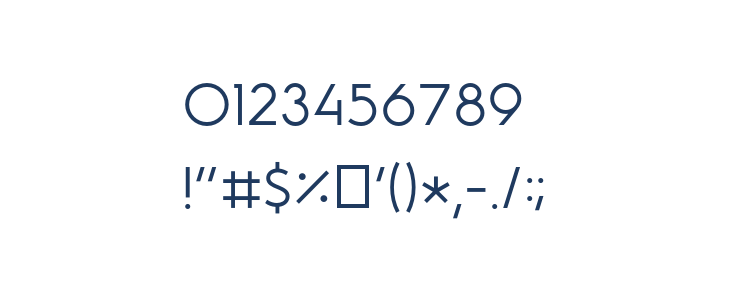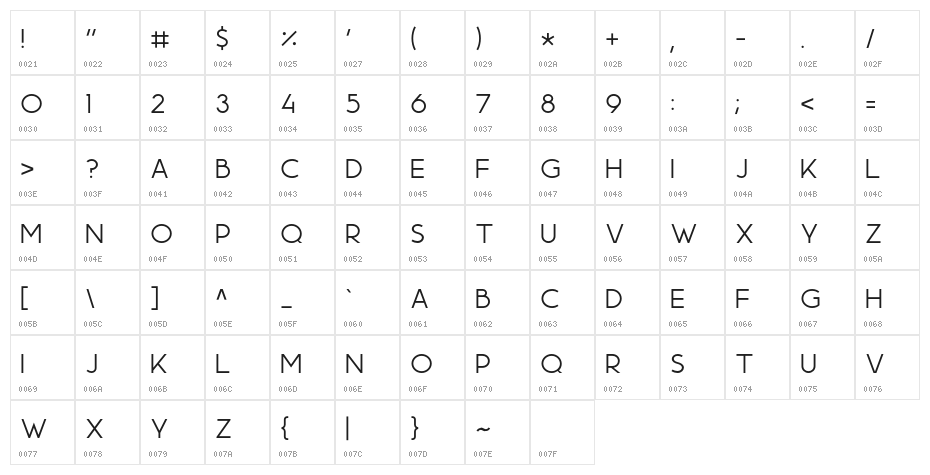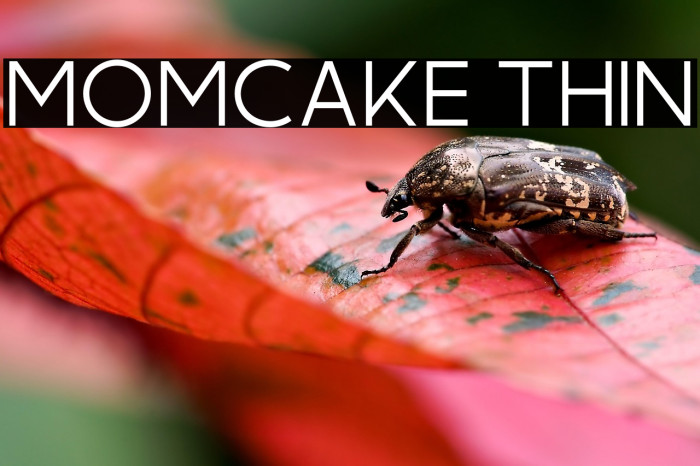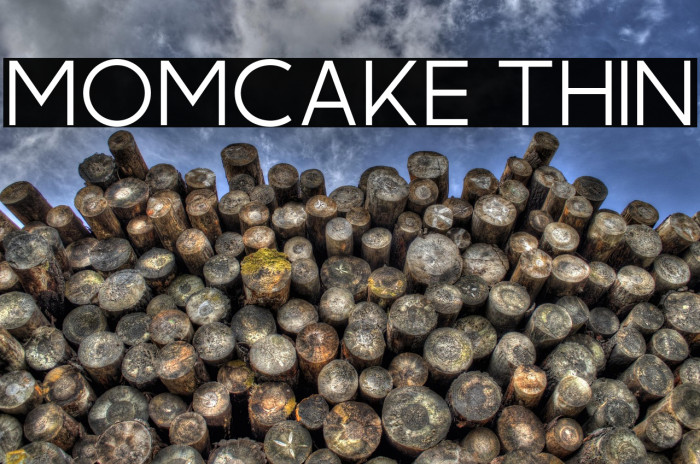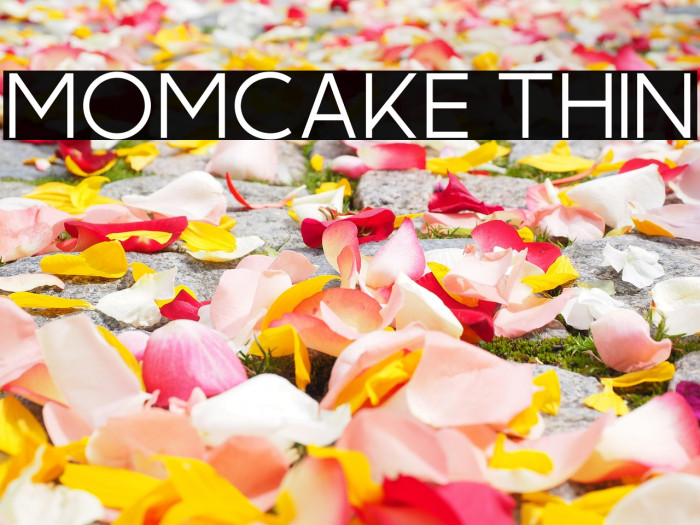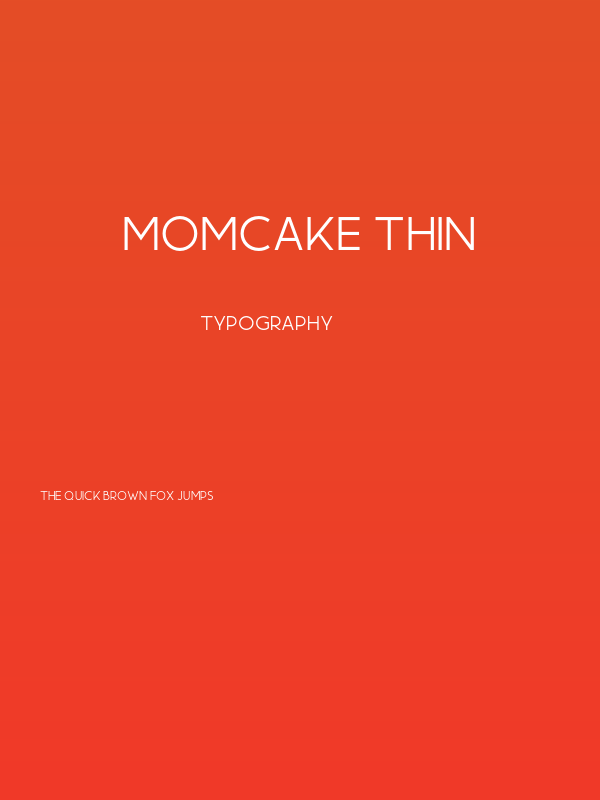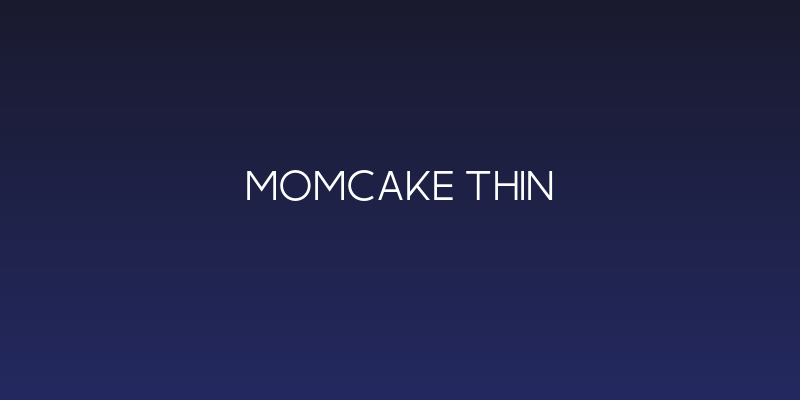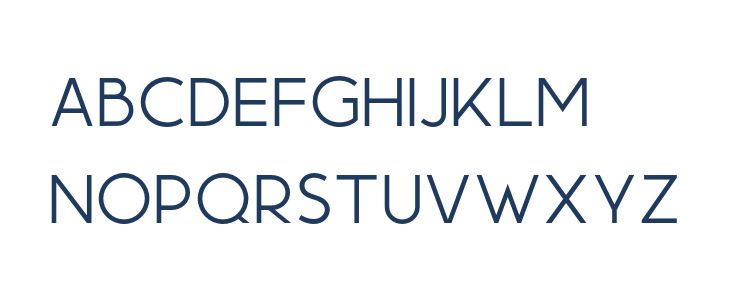
Momcake Thin Font
Momcake Thin Description
This typeface presents a clean and modern aesthetic with a geometric sans-serif style. The characters are crafted with precision, featuring uniform stroke widths that contribute to a minimalist and contemporary look. The uppercase and lowercase letters maintain a consistent height, enhancing readability and visual harmony. The numerals are equally balanced, aligning seamlessly with the alphabetic characters. Special characters are designed with the same attention to detail, ensuring they integrate smoothly into any text. This font's simplicity and elegance make it versatile for various design applications.
| Proposed Projects | Ideal for branding, editorial design, web design, and corporate materials. |